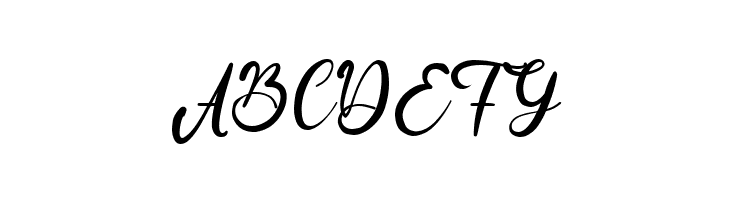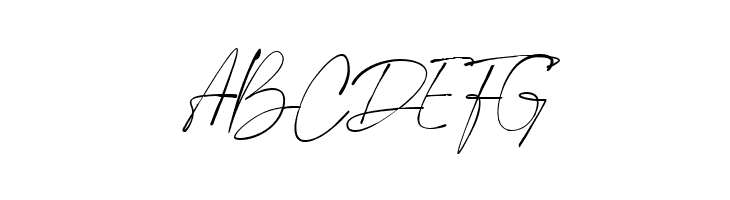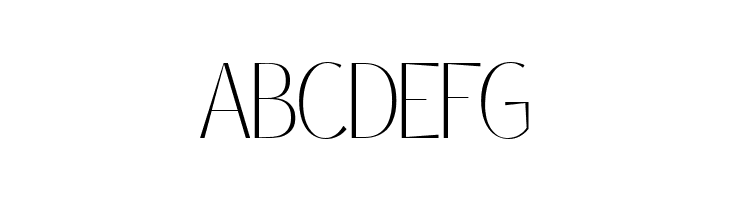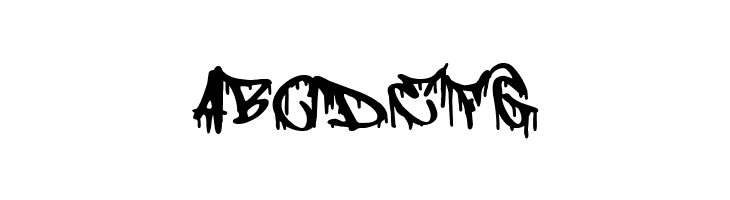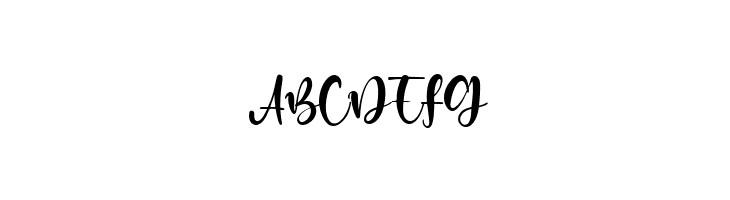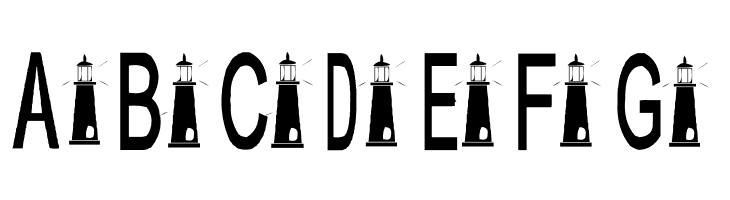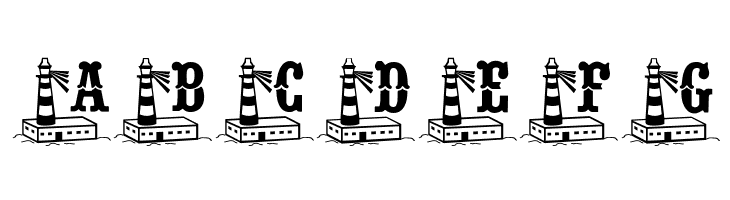
• Claudya Coast
A flowing, cursive font with elegant loops and swashes.
• ClaudyaCoast
A graceful script font with flowing, connected strokes and elegant curves.
• The Coastal
A casual, elegant handwritten font with fluid, connected letters.
• Coldcoast
A dynamic and elegant script font with flowing, cursive letterforms.
• Free Coastine Regular
A sleek, modern font with tall, narrow characters and minimal contrast.
• Coastine Regular
A sleek, modern font with thin, elongated letterforms and a sophisticated style.
• Spanish West Coast
A bold, graffiti-style font with a dripping paint effect.
• Coasta
A playful, handwritten font with thin, irregular strokes and a casual style.
• CoasterGhostPersonalUseOnly-Reg
A bold, high-contrast font with sharp serifs and a vintage-modern style.
• Hidden Coast
A playful, cursive font with flowing, interconnected strokes.
• HiddenCoast
A playful, cursive font with a handwritten style and smooth, flowing strokes.
• Coaster Rible
A bold, rounded font with a playful and friendly style.
• CoastlineCalligraphy Script
• Night Coast Demo
• MagicSymbols
• Aero Font One Swash
An elaborate and decorative font with intricate swashes and flourishes.
• Surf Bat [Windsurfing Dingbats]
• AEZ seascape
A decorative font with a lighthouse motif integrated into each letter, ideal for nautical themes.
• Maritime Flags Black
A bold, geometric set of symbols inspired by maritime signal flags.
• amusement park
A decorative pictogram font featuring amusement park icons.
• Baywatch
A bold, geometric sans-serif font with a modern and clean design.
• BJF Beacon of Light
A decorative font with lighthouse-themed characters, ideal for nautical designs.